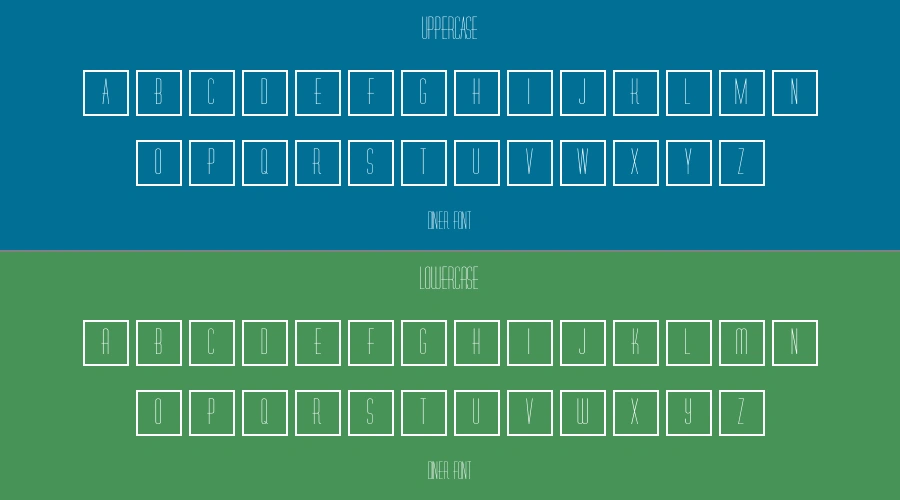
About Diner Font
Diner Font stands out for its distinctive combination of open counters and professional reliability. Ideal for academic publications, it provides the distinctiveness and brand differentiation that professional projects demand. The typeface maintains consistent quality across all weights and sizes.
Key features include refined tapered strokes and practical superior letters, enhancing typographic expression. In specification lists applications, Diner Font demonstrates exceptional distance readability. The counter shape and institutional trust contribute to its distinctive character and professional appeal.